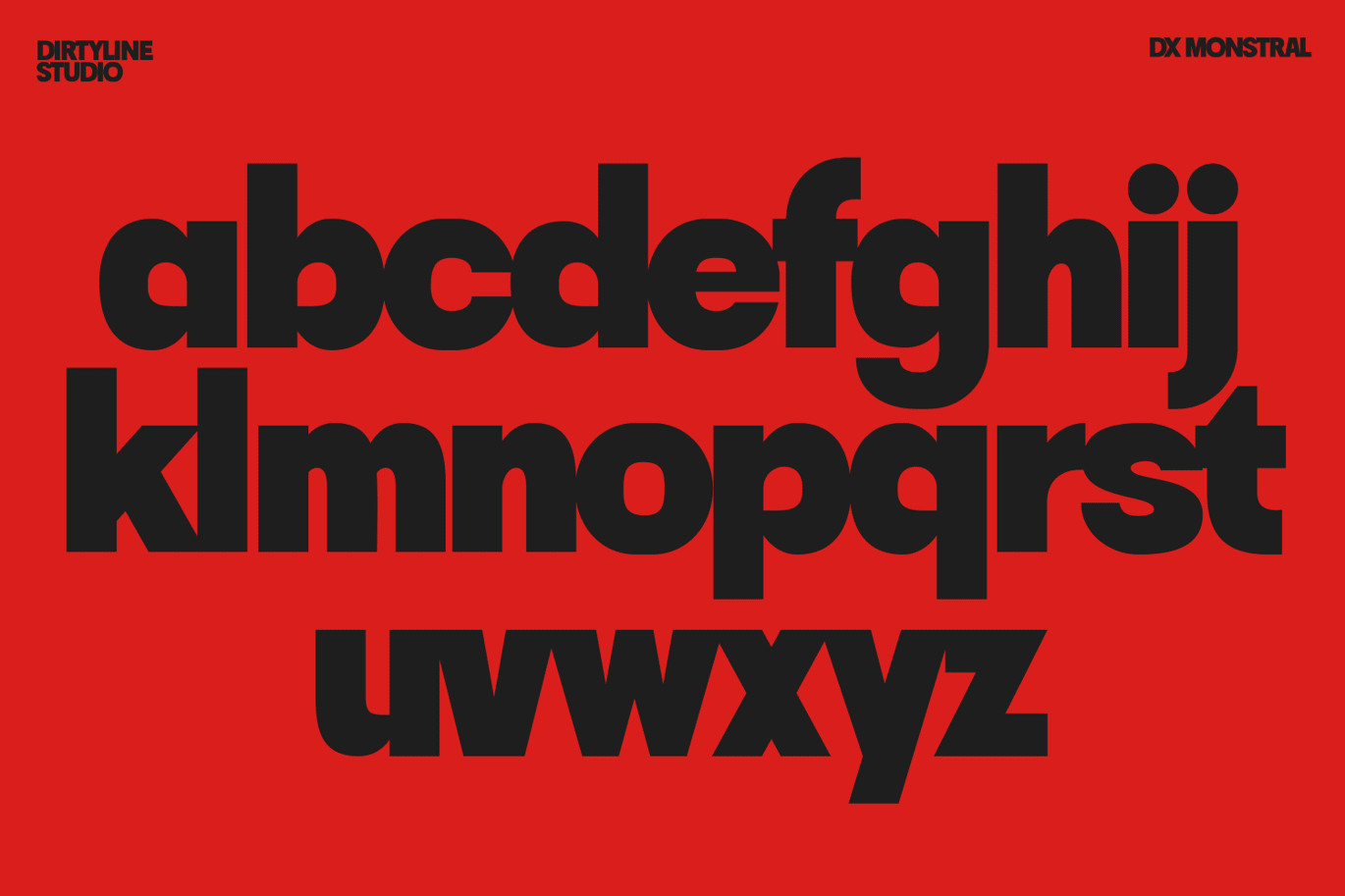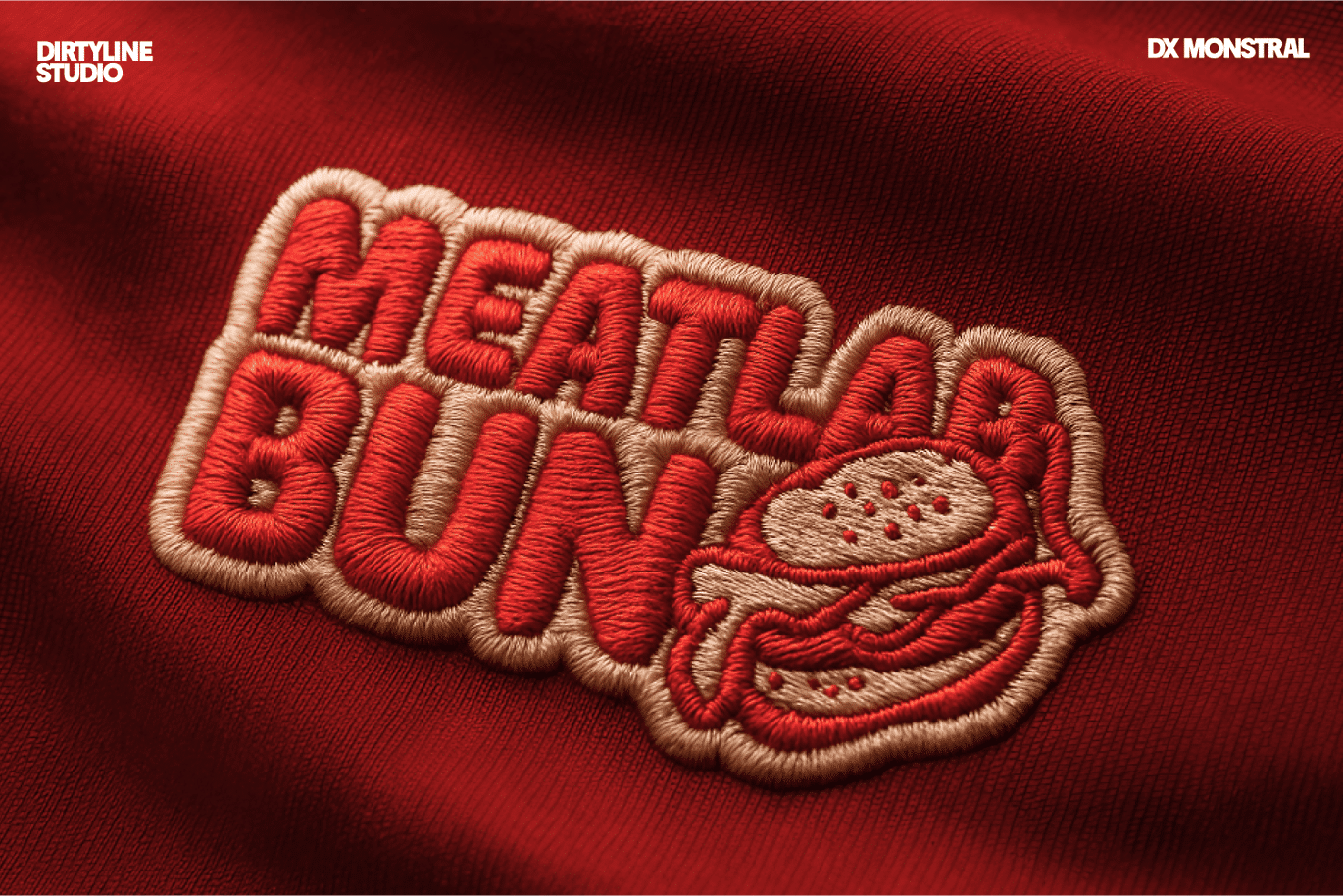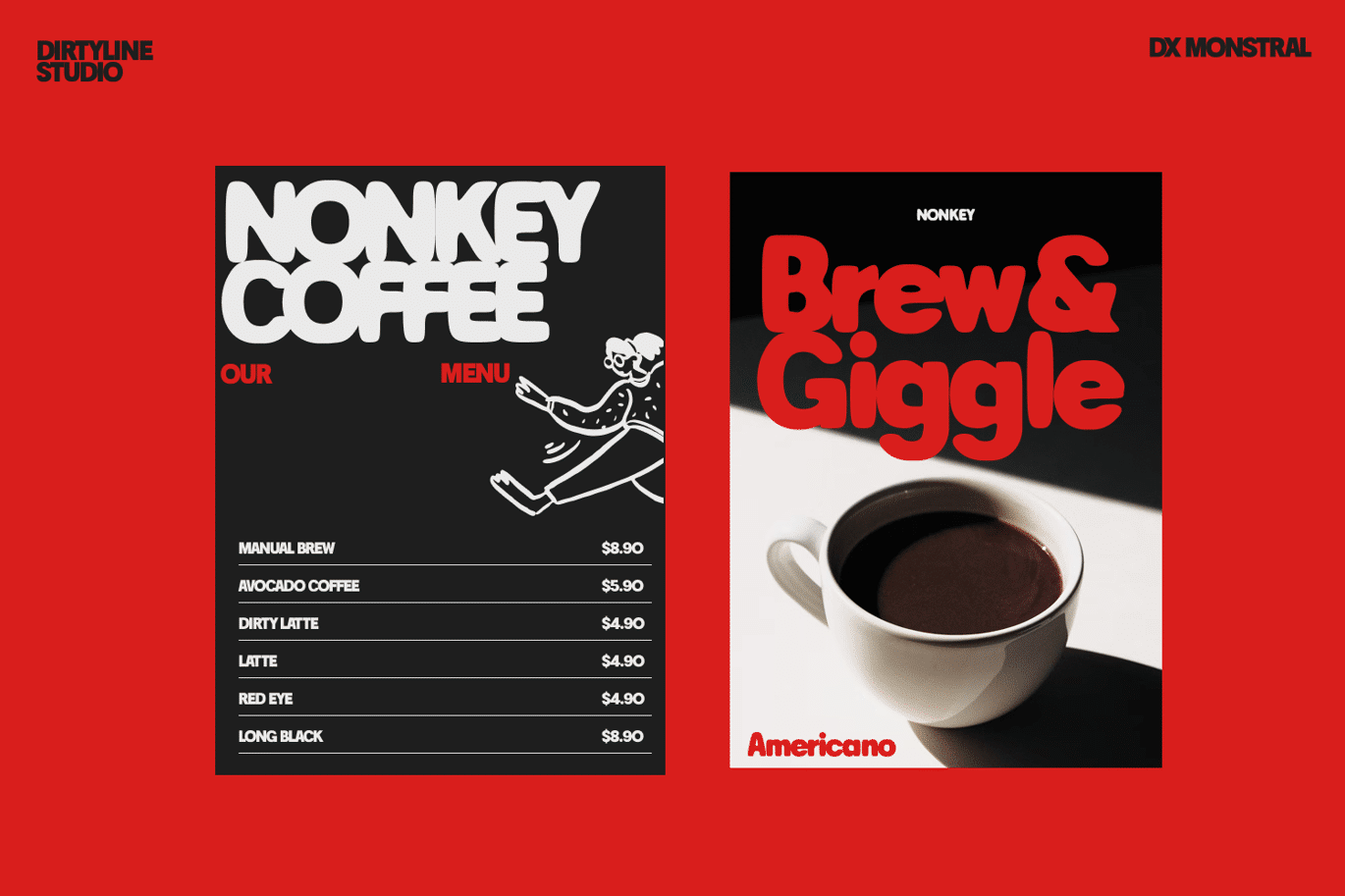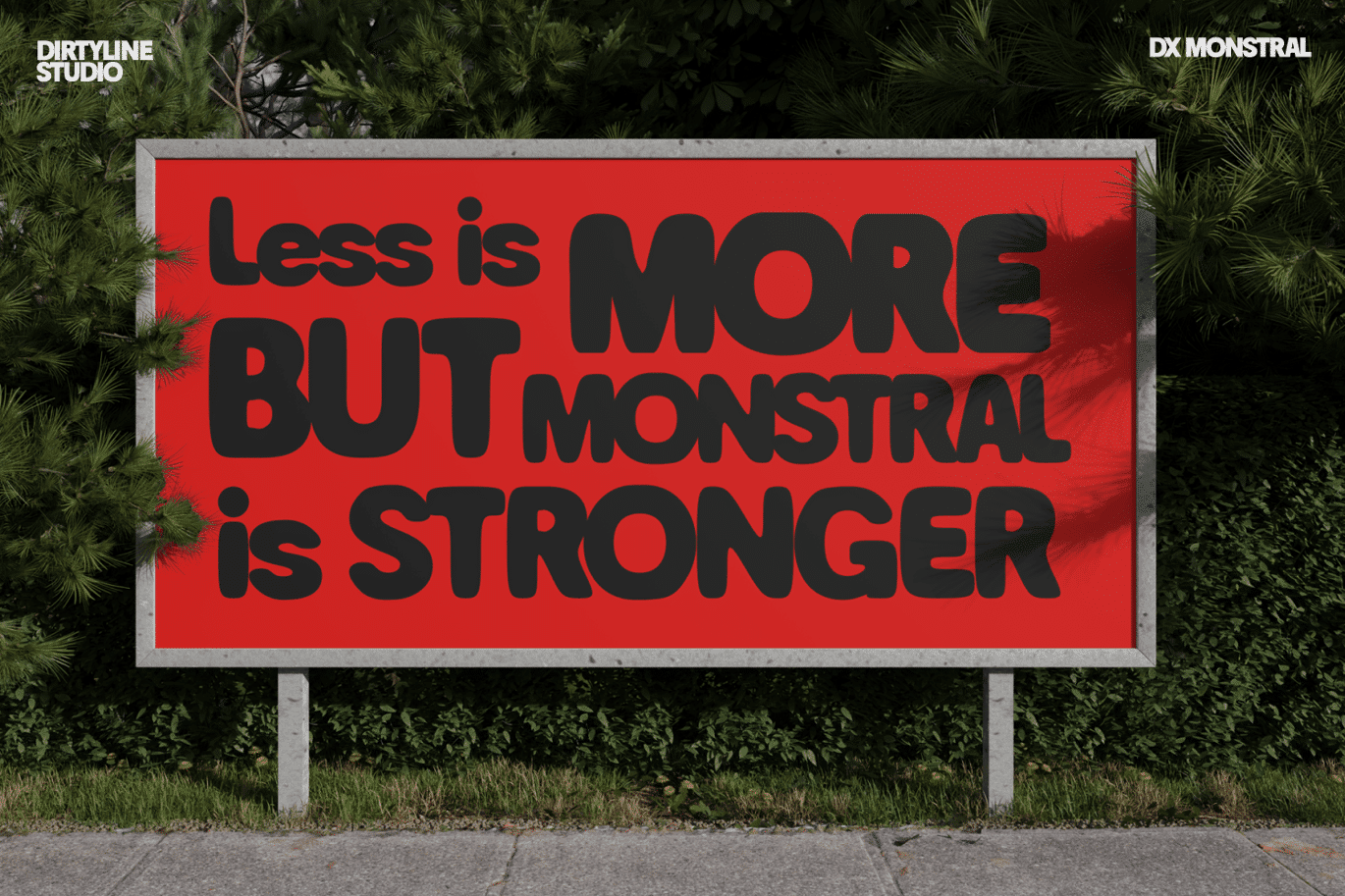
Monstral – Bold Display Sans Font
Dx Monstral — Display Font (3 Styles)
Sturdy, soft-edged letterforms for loud headlines, playful branding, and high-impact visuals.
Dx Monstral blends brutal weight with friendly curves. The family delivers three statement styles—perfect for posters, packaging, menus, billboards, apparel graphics, and modern logotypes.
- Basic — crisp, heavy, and highly legible
- Smooth — softer edges with a glossy feel
- Blur — expressive, energetic, and attention-grabbing